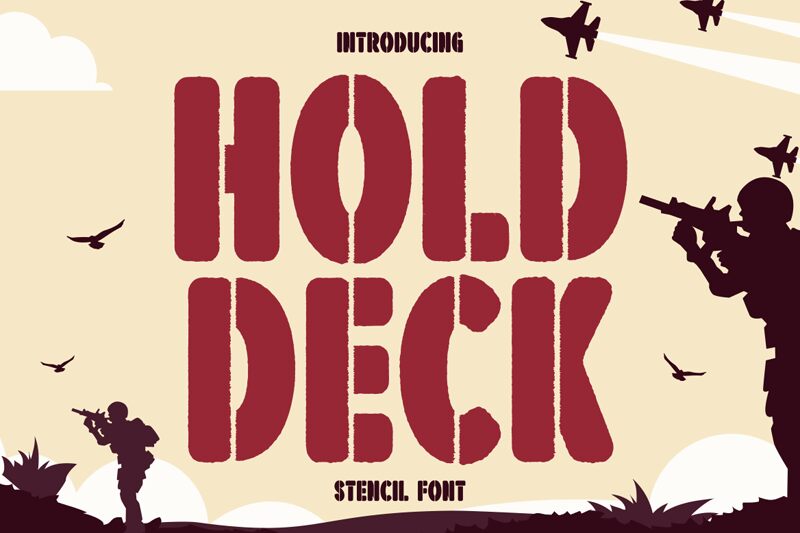
Hold Deck font family by PutraCetol Studio provides a versatile army-style look inspired by the aesthetics of the military stencil founts of the past. This collection of 4 font styles can provide a layer of authenticity and a unique touch to any project. Use it to complete any vintage designs or to simply communicate strong ideas with power and authority. This free font family is an incredible pick for any digital or printed project and will take any design to another level.
The rough, worn-out feel of this stencil font will beautifully outfit any product badge, alcohol packaging, motorbike banner, or any signage. Take advantage of the ordinary careless cutoffs that give the font its distinct style to create tantalizing brochure titles or breathtaking poster headers.